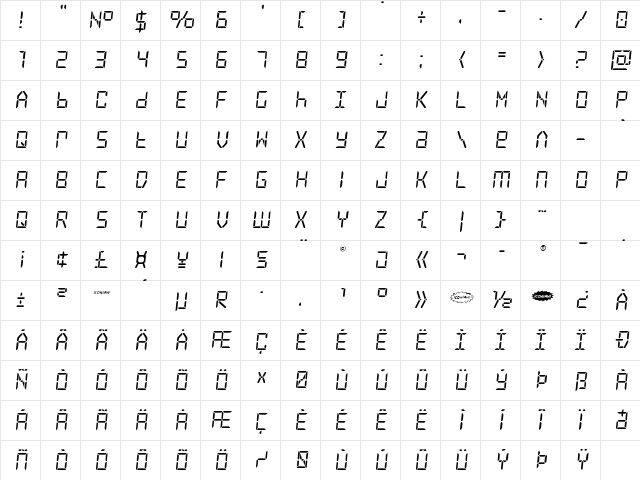
Frozen Crystal Light Light
Design Context for Frozen Crystal Light
Frozen Crystal Light is a composed and adaptable typeface that performs quietly and consistently across a wide range of design contexts. Its slender proportions lend an understated elegance to any composition.